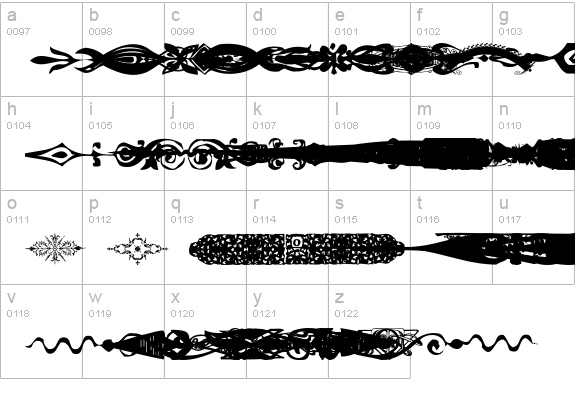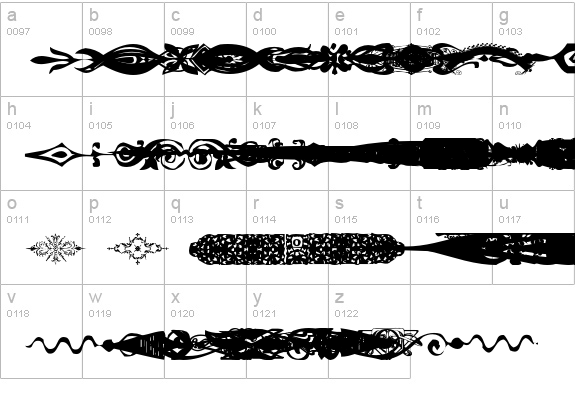
DividersTwo Font Details
Introducing DividersTwo font, a stunning addition to your design arsenal! This elegant and versatile font features intricate dividers and ornaments that will elevate any project to new heights. With its unique blend of sophistication and charm, DividersTwo is perfect for adding a touch of class to invitations, posters, logos, and more. The best part? DividersTwo font is absolutely free to download at FontsMarket.com! That's right, you can easily enhance your designs with this exquisite font without breaking the bank. Don't miss out on the opportunity to elevate your creations with DividersTwo - download it today and let your creativity shine!